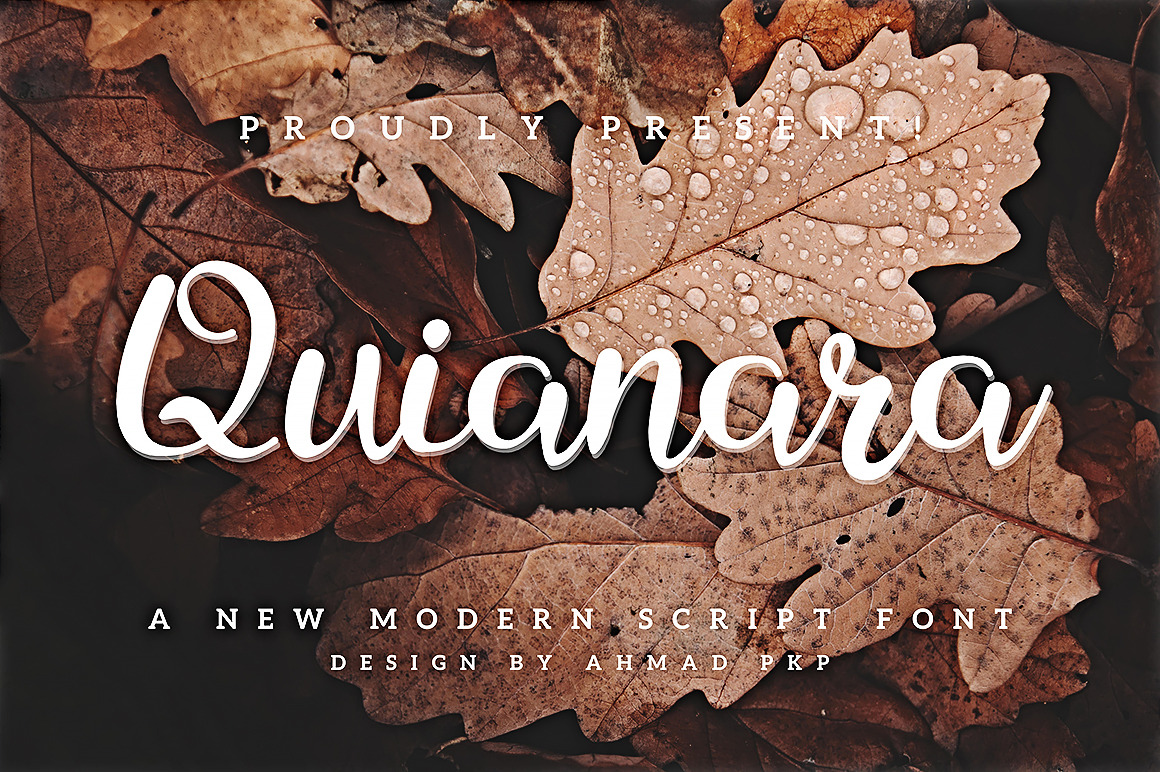
Quianara Font - Elegant Script
Quianara is a fancy handwritten script font. With signature light contrast strokes, the characters are fun with a bit of binder and substitute. To give you extra creative work. This Quianara Font is great for logo designs, social media, Movie Titles, Book Titles, short text even long text letters and is great for your secondary text fonts with sans or serif. Create stunning masterpieces with the Quianara Font.